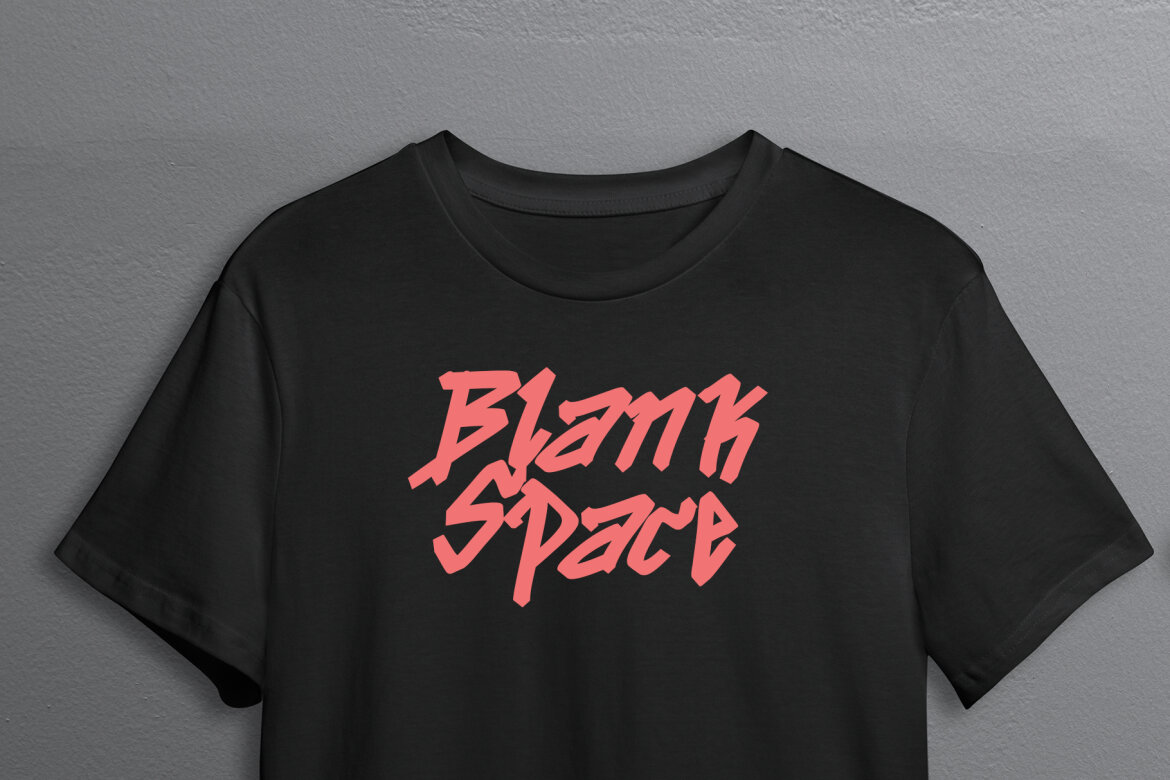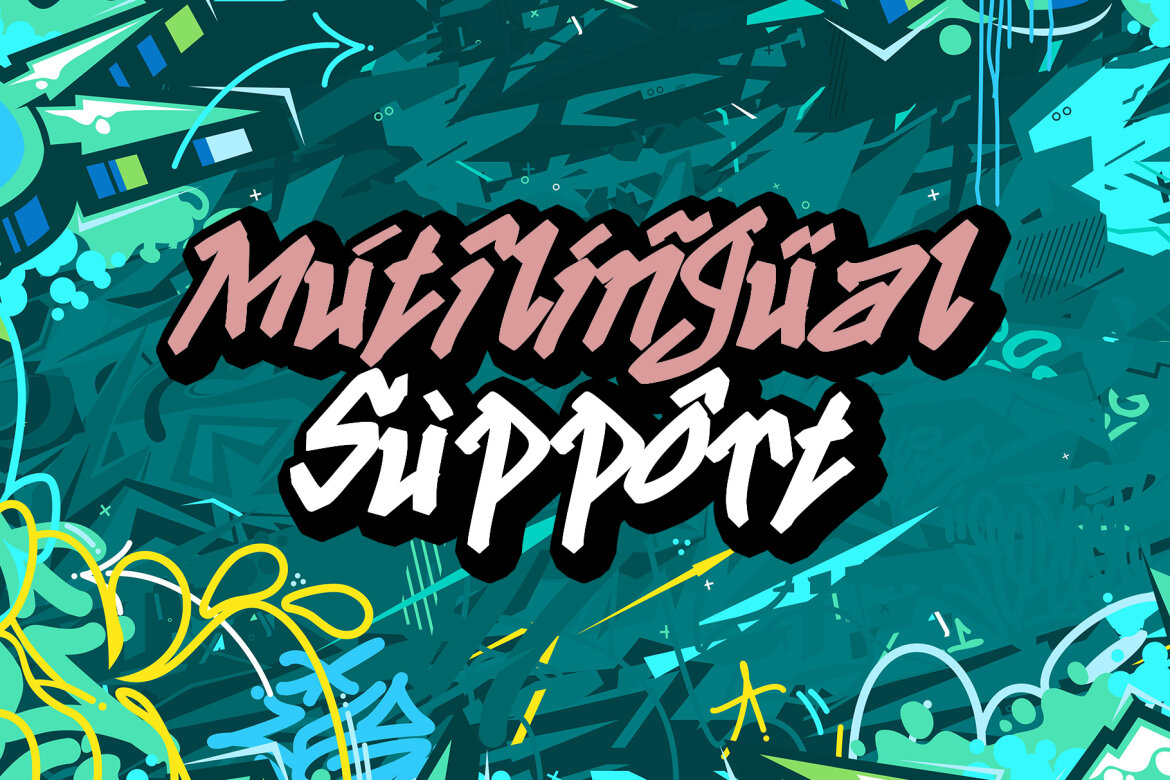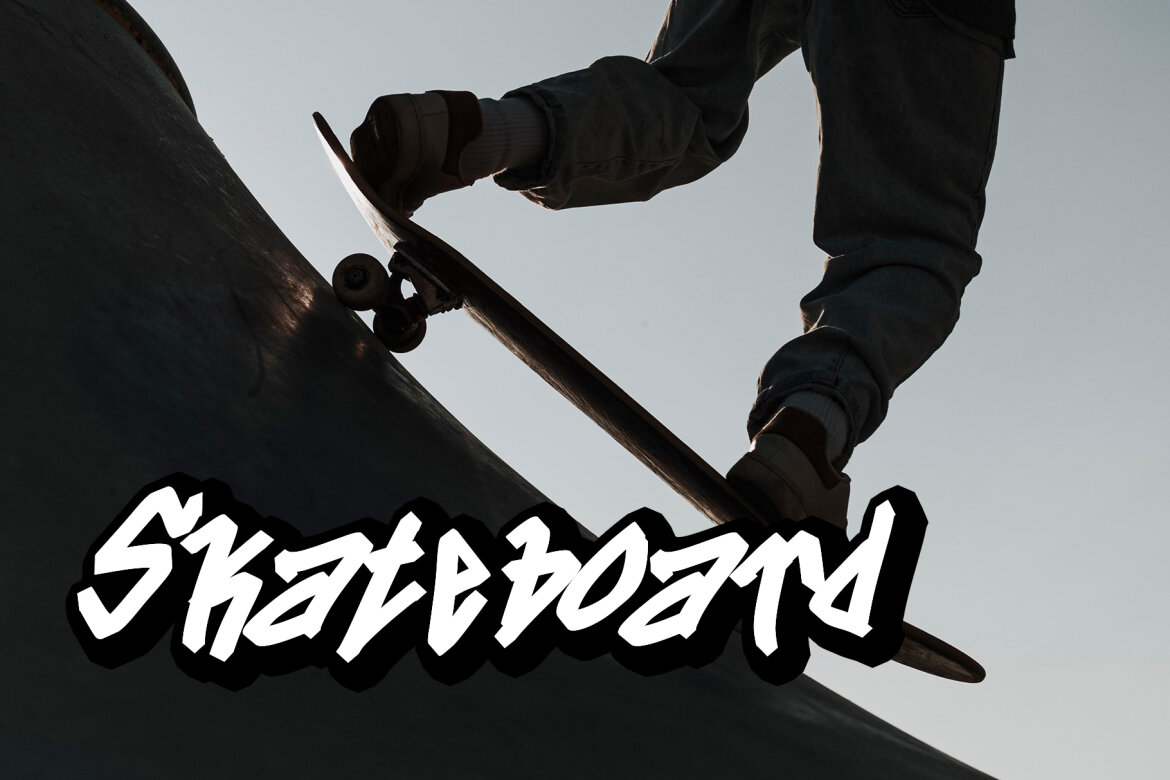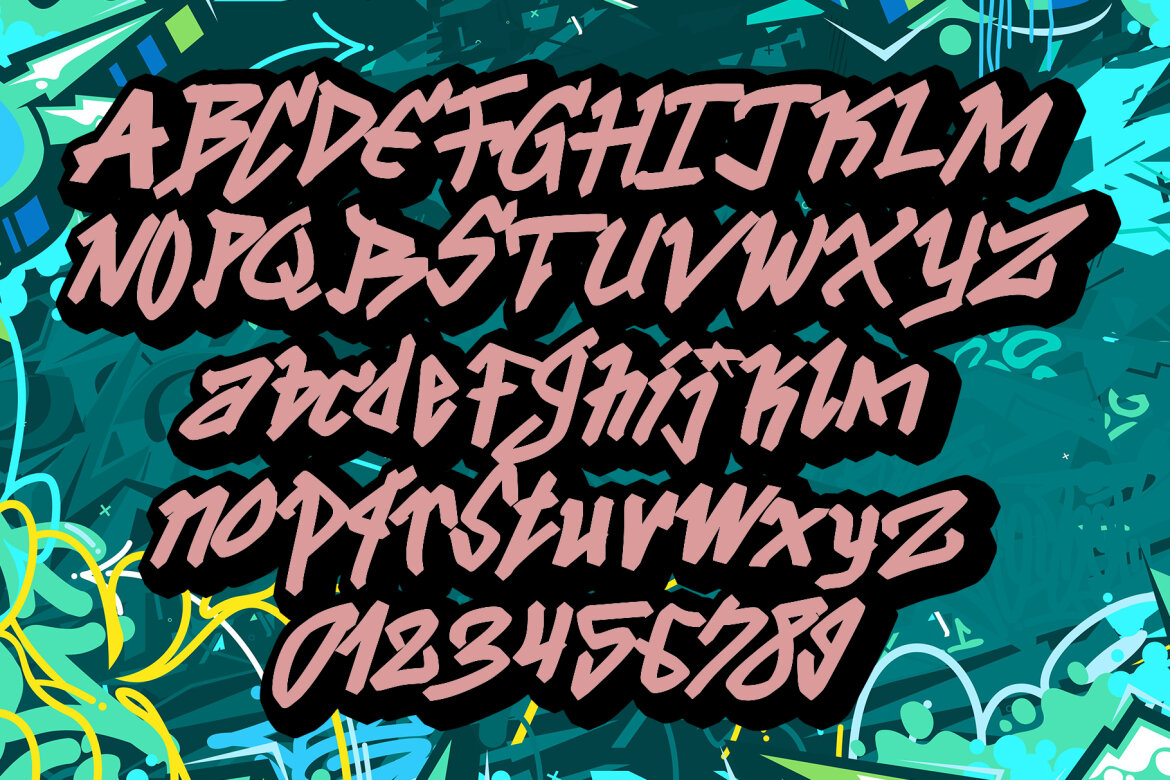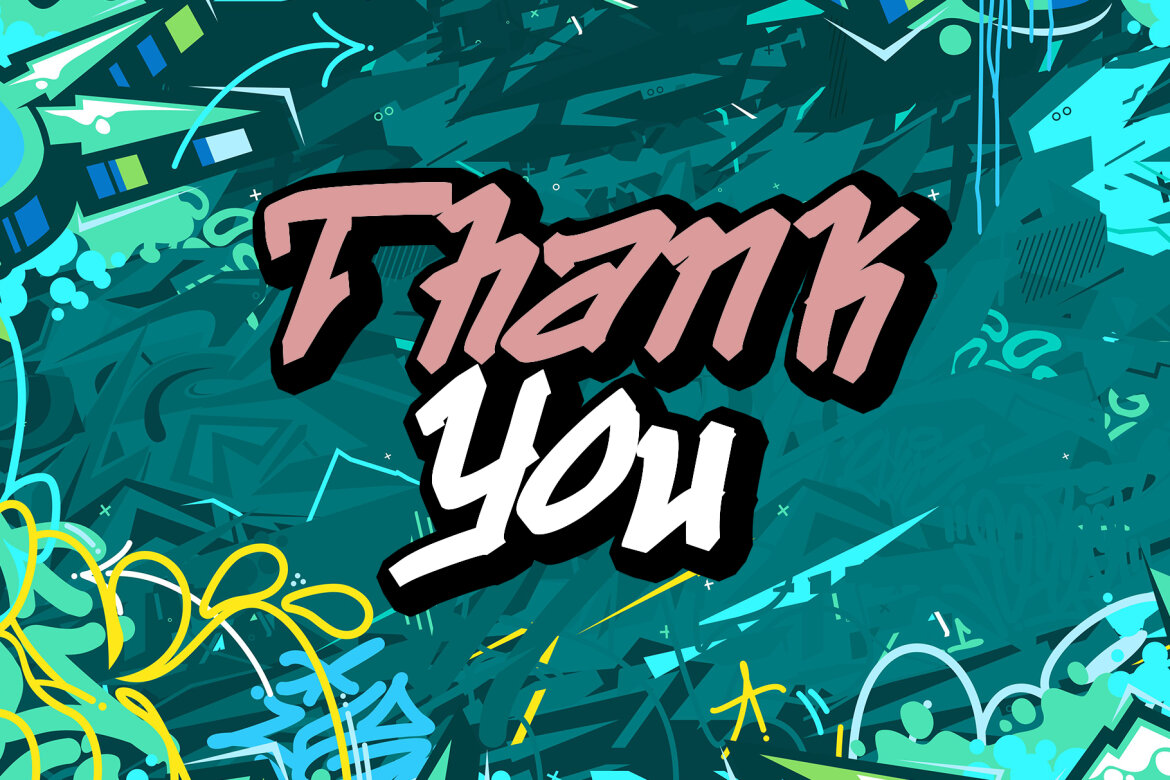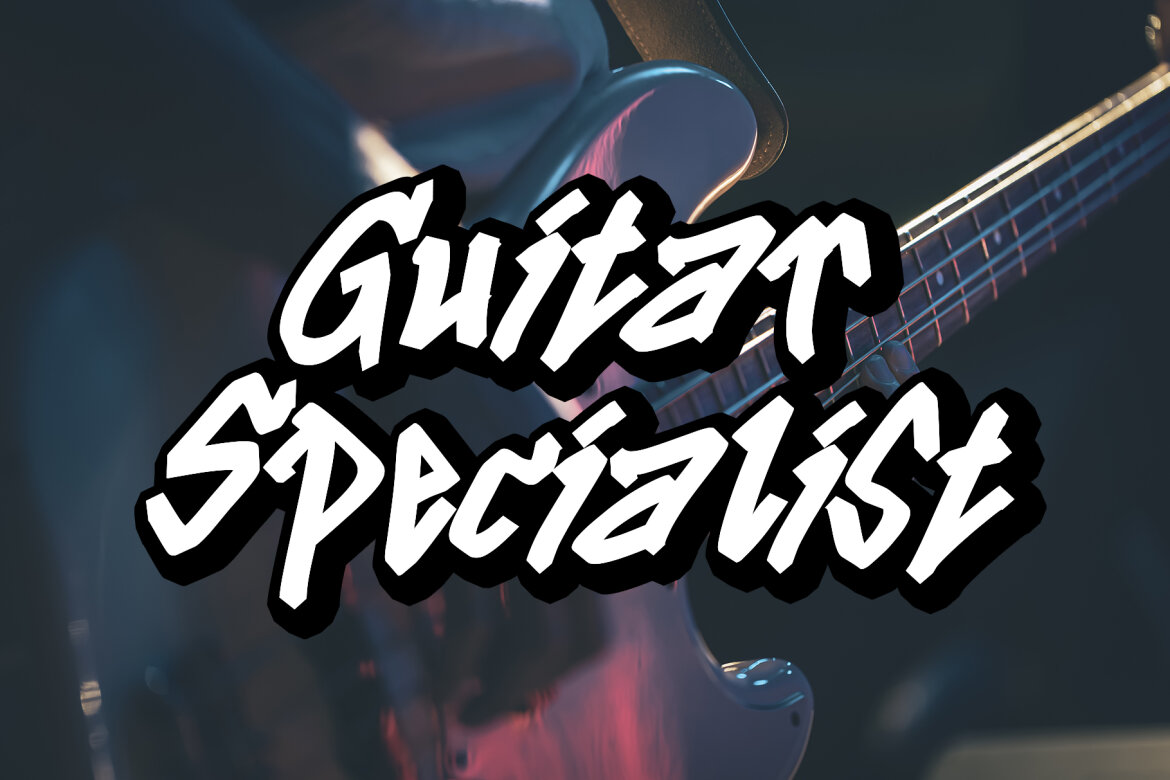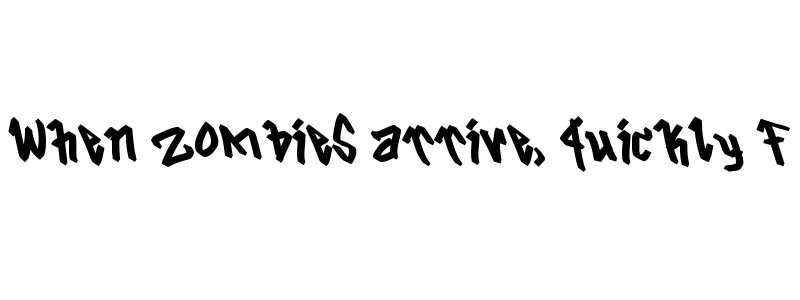
Blangkon Free Font
Blangkon is a natural graffiti font. It looks stunning on thank you cards, quotes, greeting cards, logos, business cards, and every other design which needs a handwritten touch.